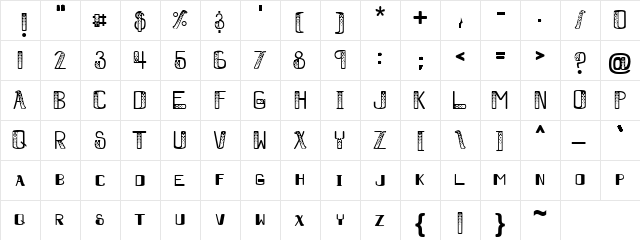
Boombia Dance Regular
Design Context for Boombia Dance Typeface
Boombia Dance is a composed and adaptable typeface that performs quietly and consistently across a wide range of design contexts.